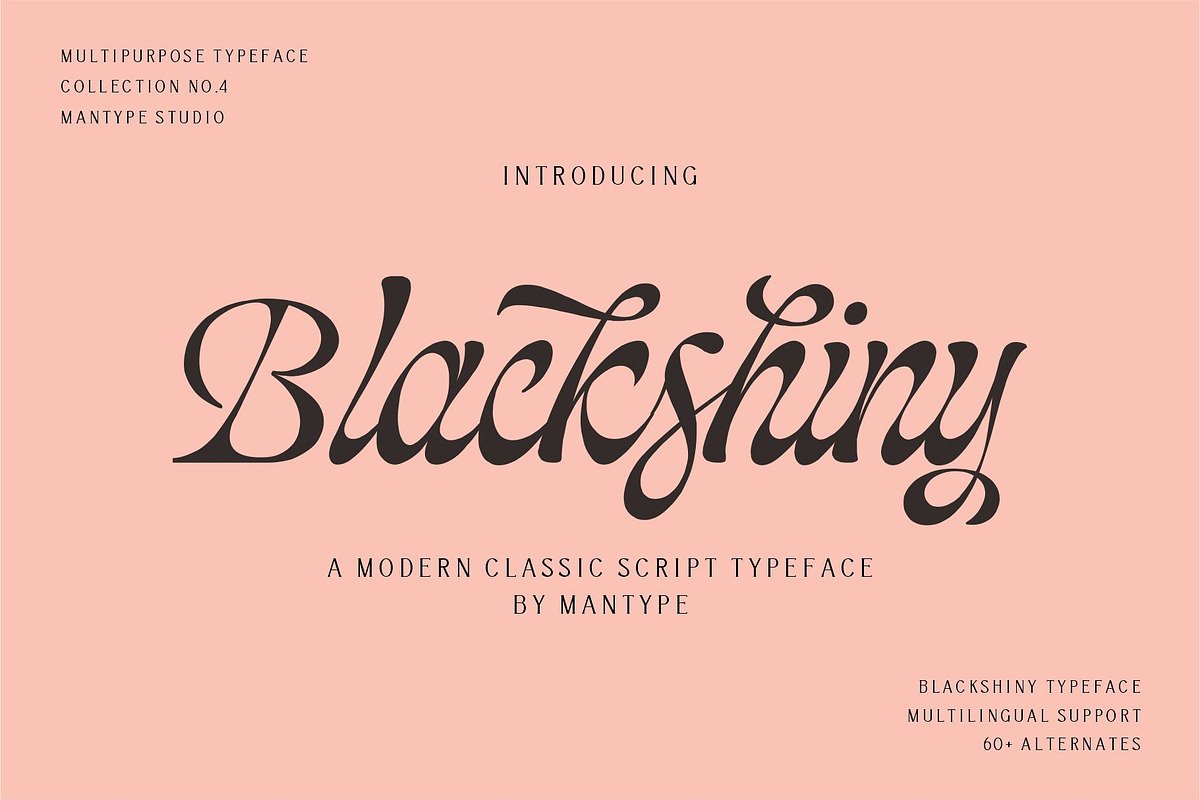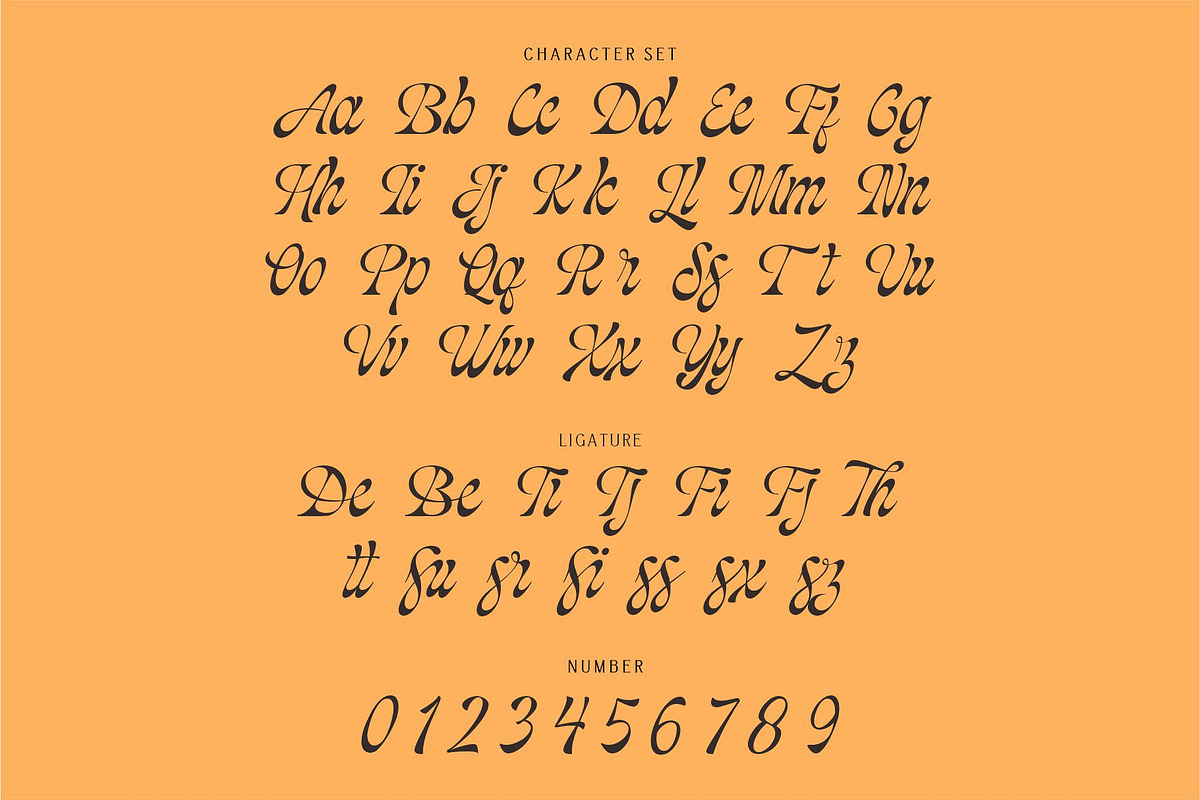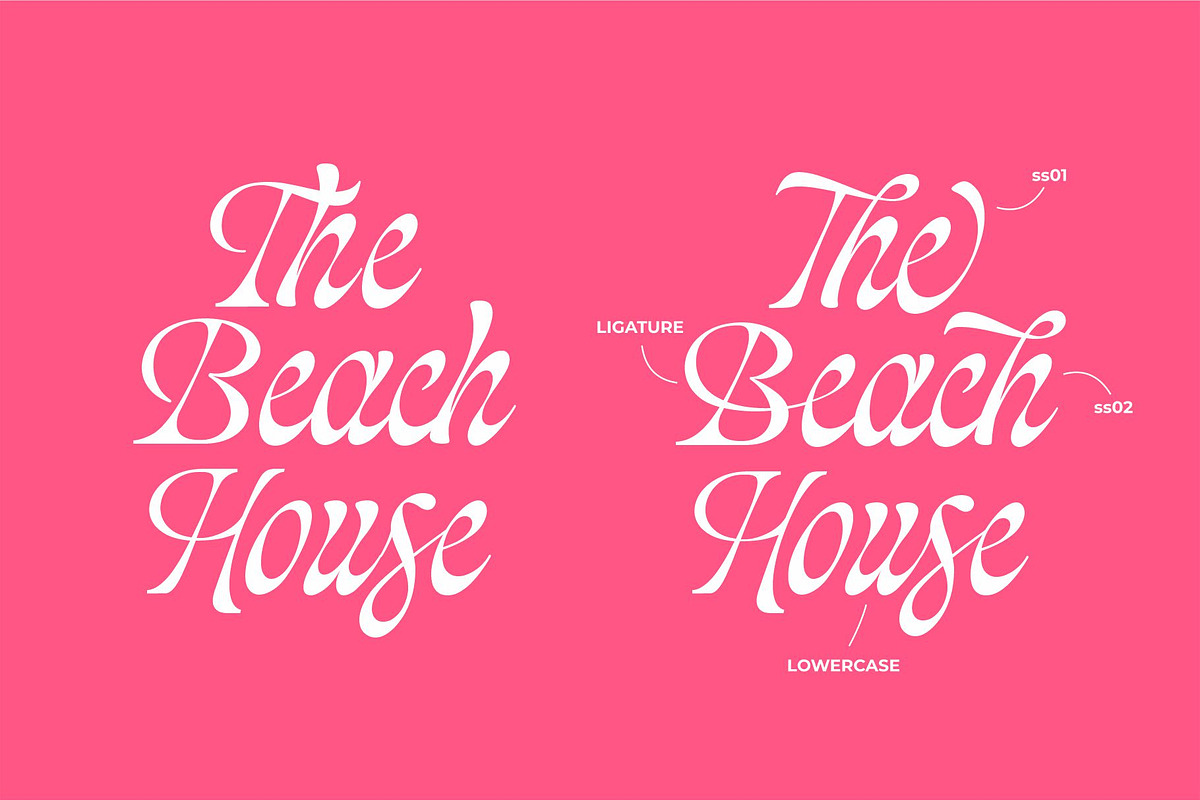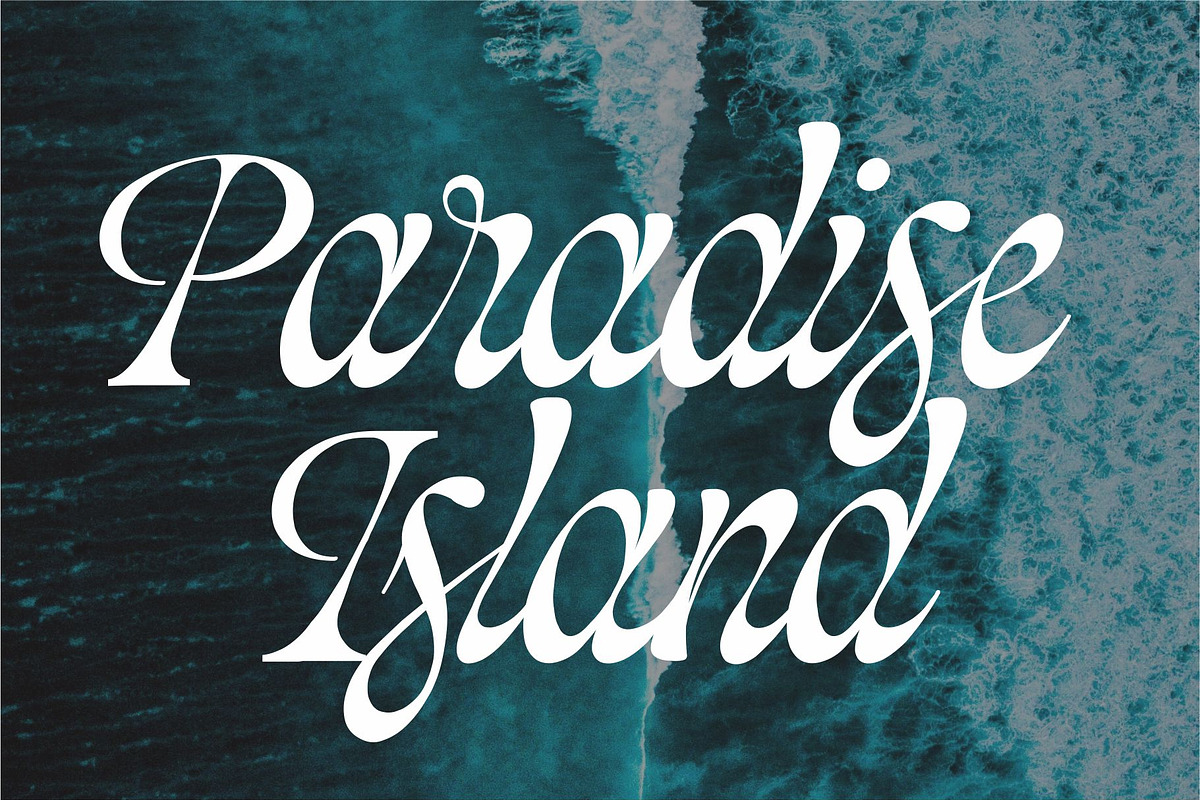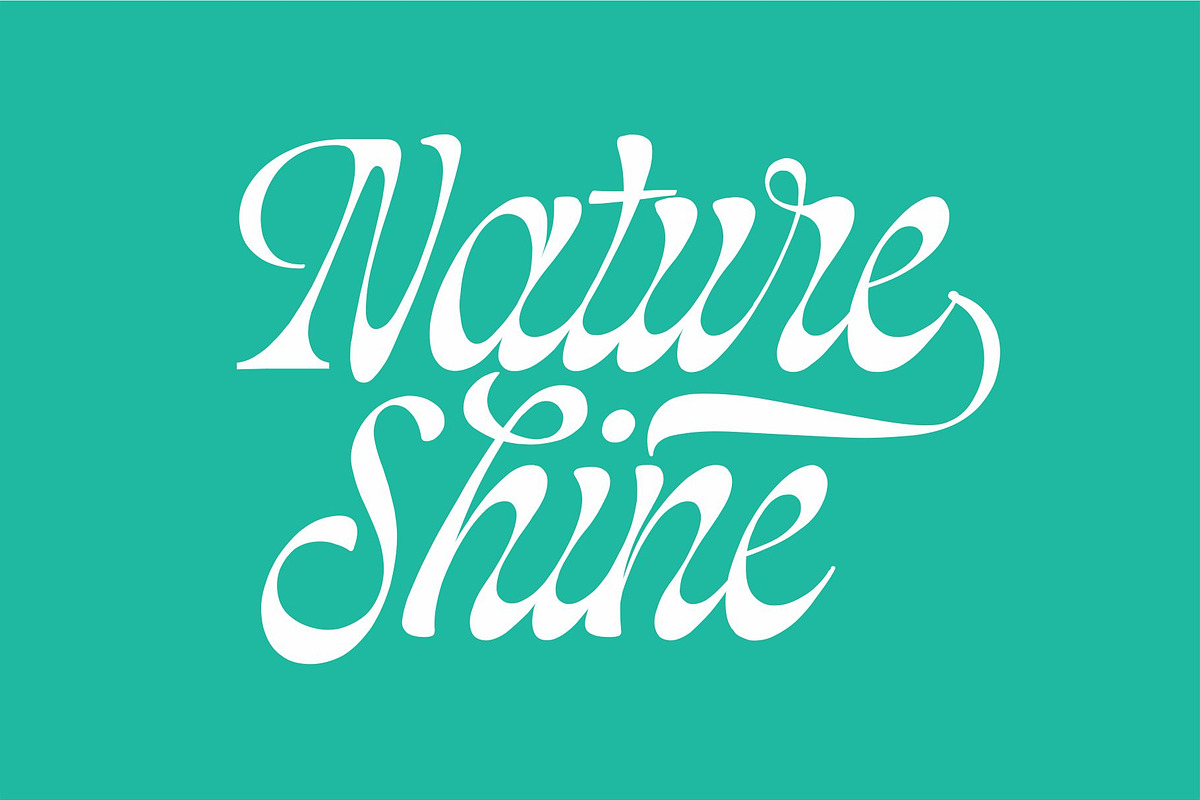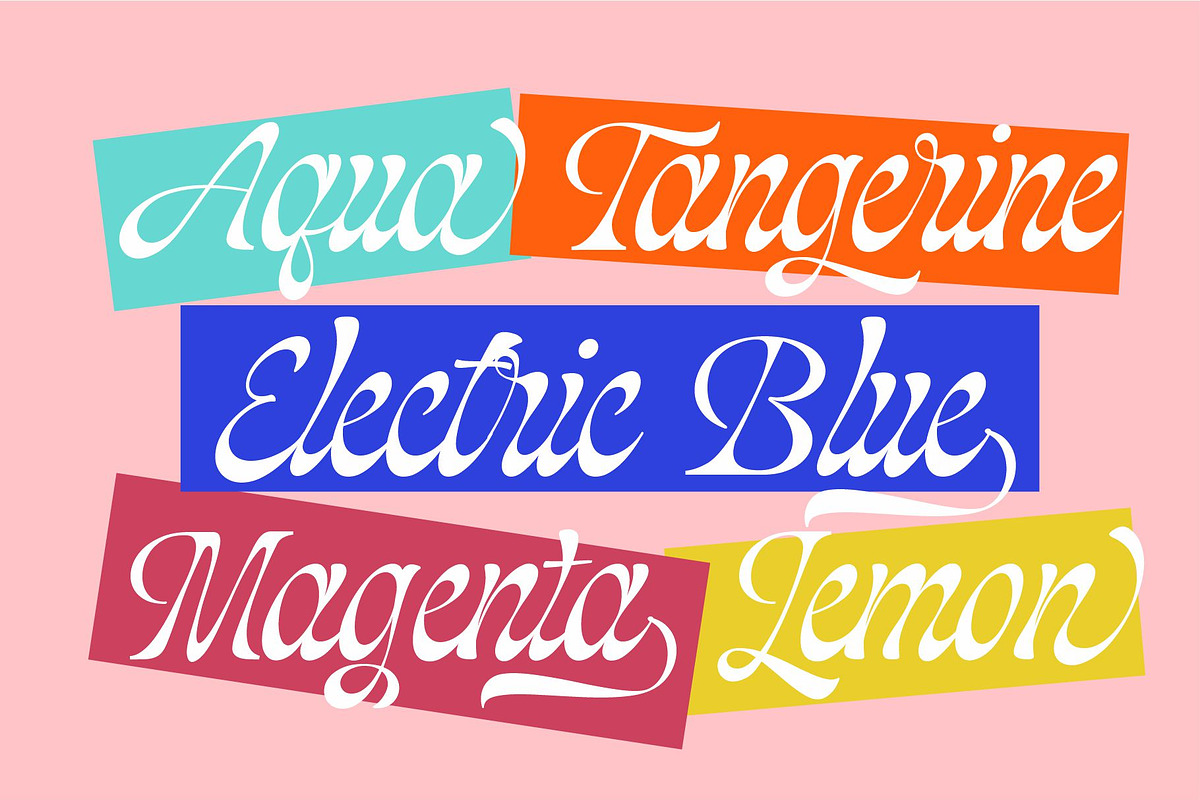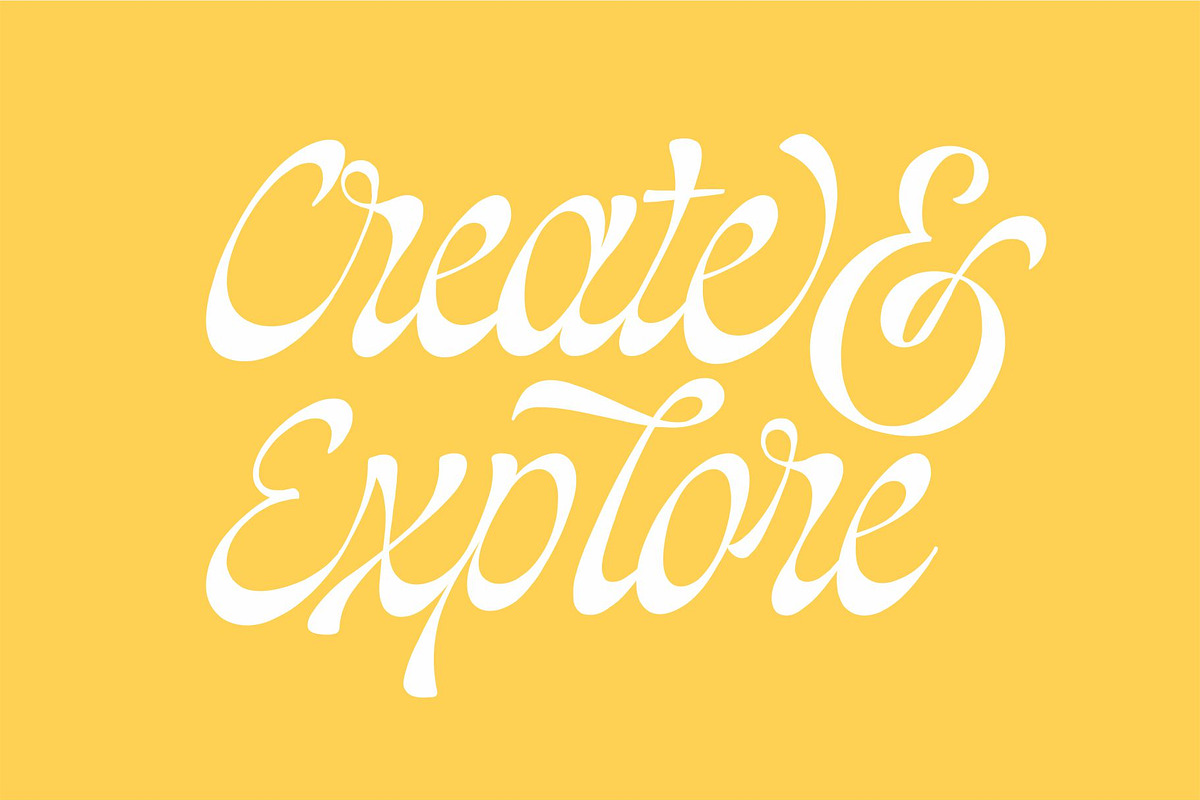
Blackshiny
Blackshiny is a modern classic style script font inspired by classic handwriting in books. With a unique appearance this font is suitable for your work such as Logotype, printed quotes, cards, product packaging, headers, Letterhead, Apparel, Magazine, Book, etc